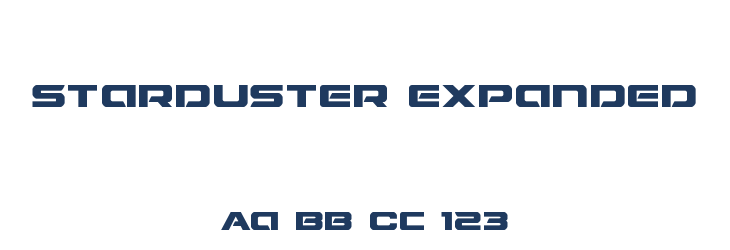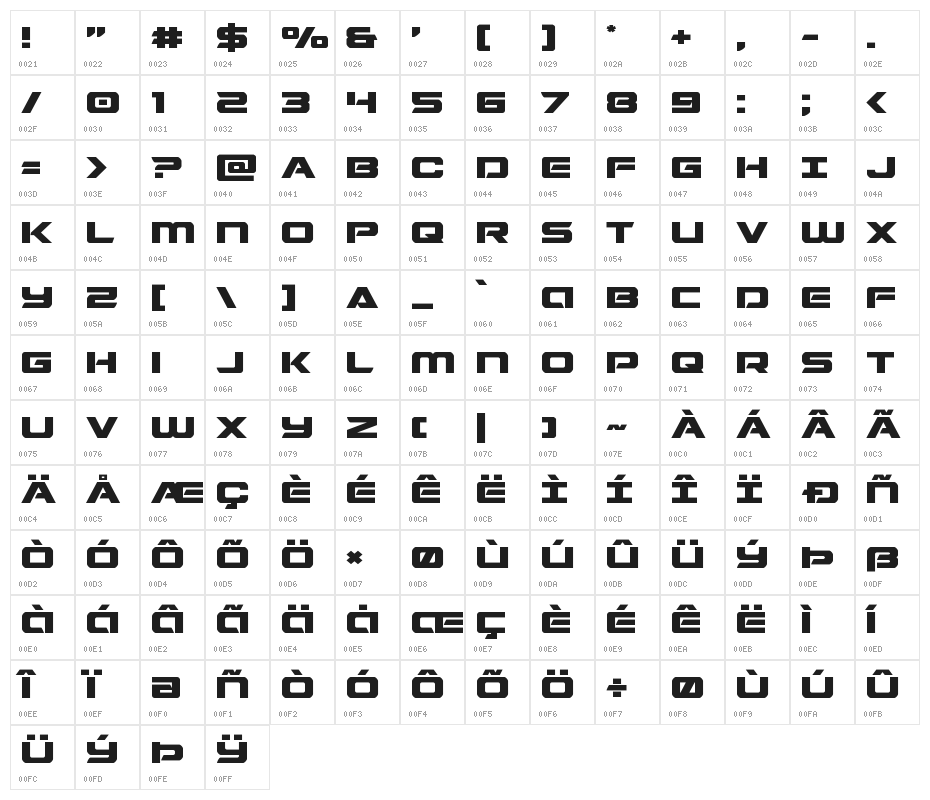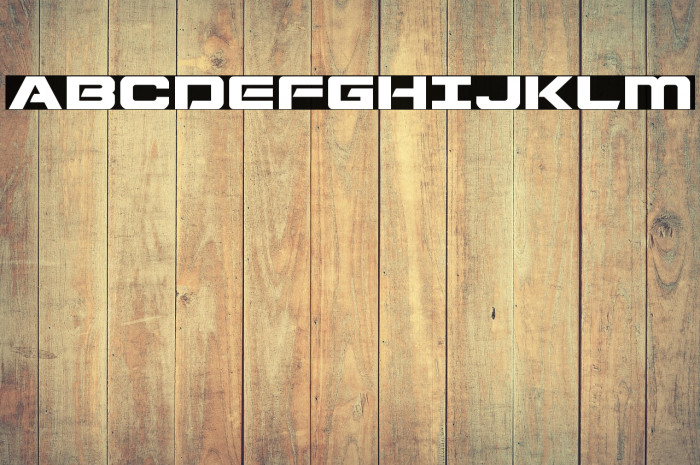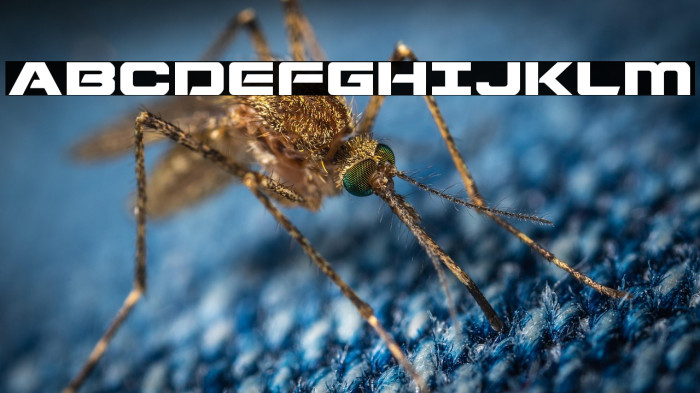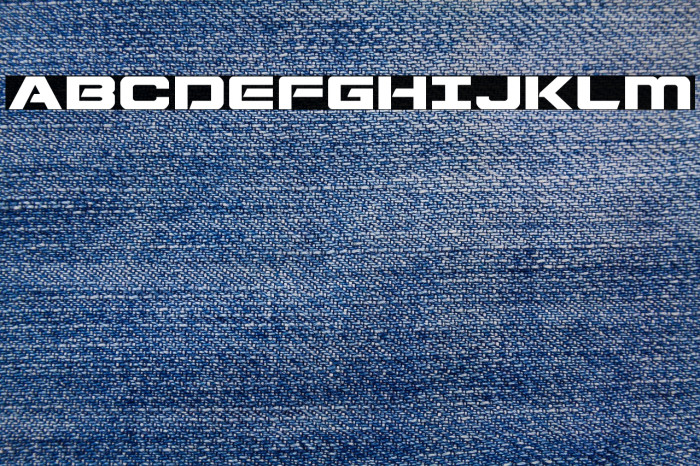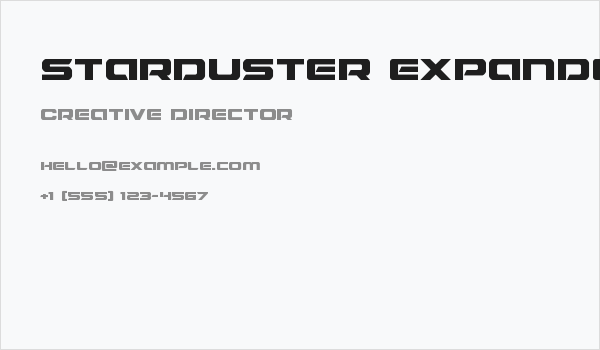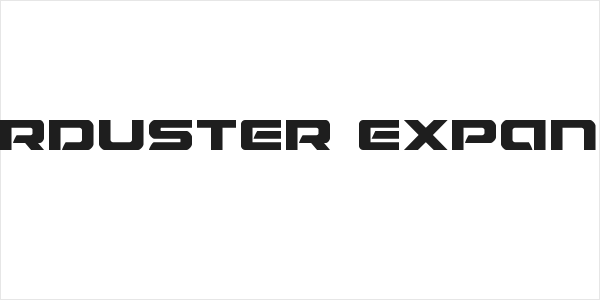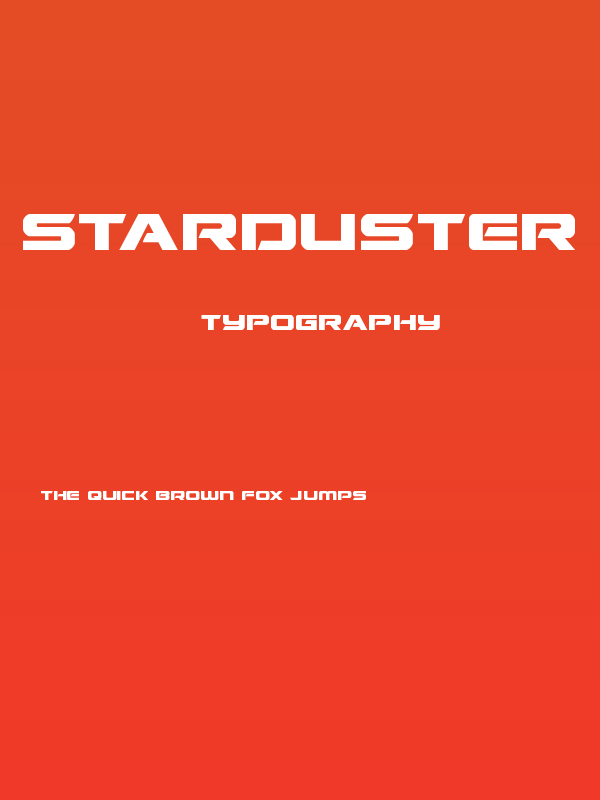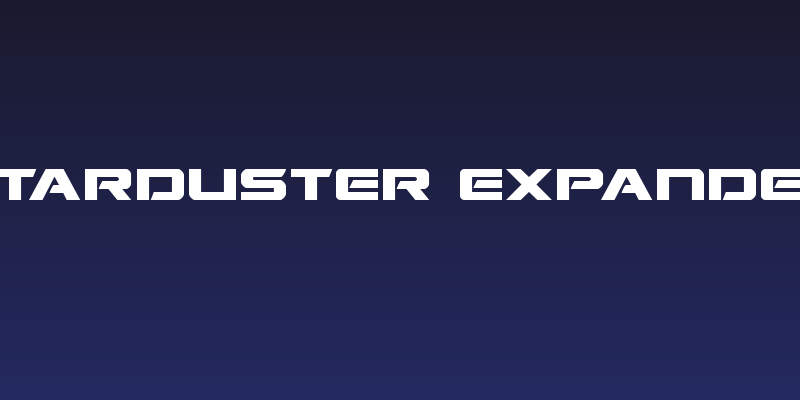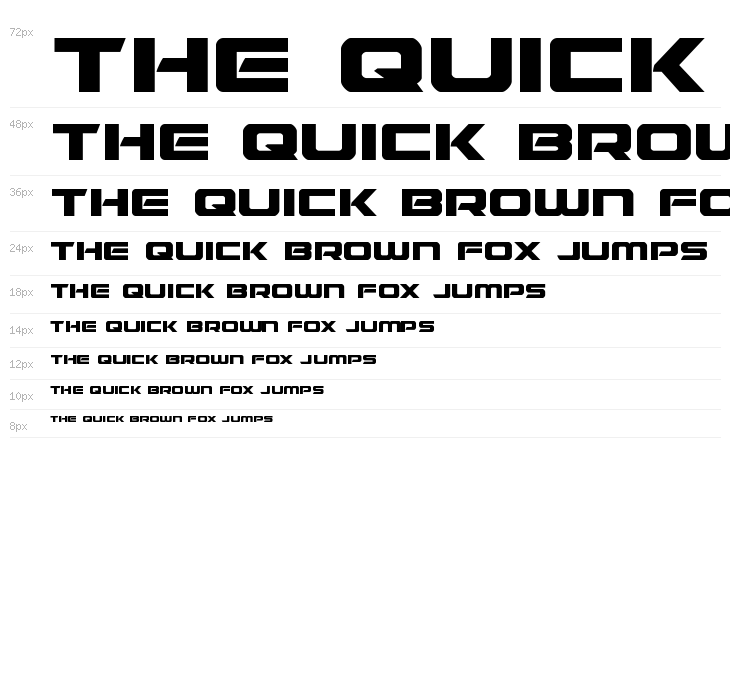
Starduster Expanded Font
Starduster Expanded Description
This font features a bold and futuristic design with a distinctly geometric structure. The characters are wide and have a block-like appearance, giving them a strong, impactful presence. The angular cuts and sharp edges contribute to a modern and dynamic aesthetic. The uniformity in the height of the characters ensures a cohesive look, while the consistent stroke thickness adds to its boldness. This font is particularly suitable for projects that require a contemporary and assertive style.
| Proposed Projects | Ideal for sci-fi themed posters, video game titles, technology branding, and modern advertising campaigns. |